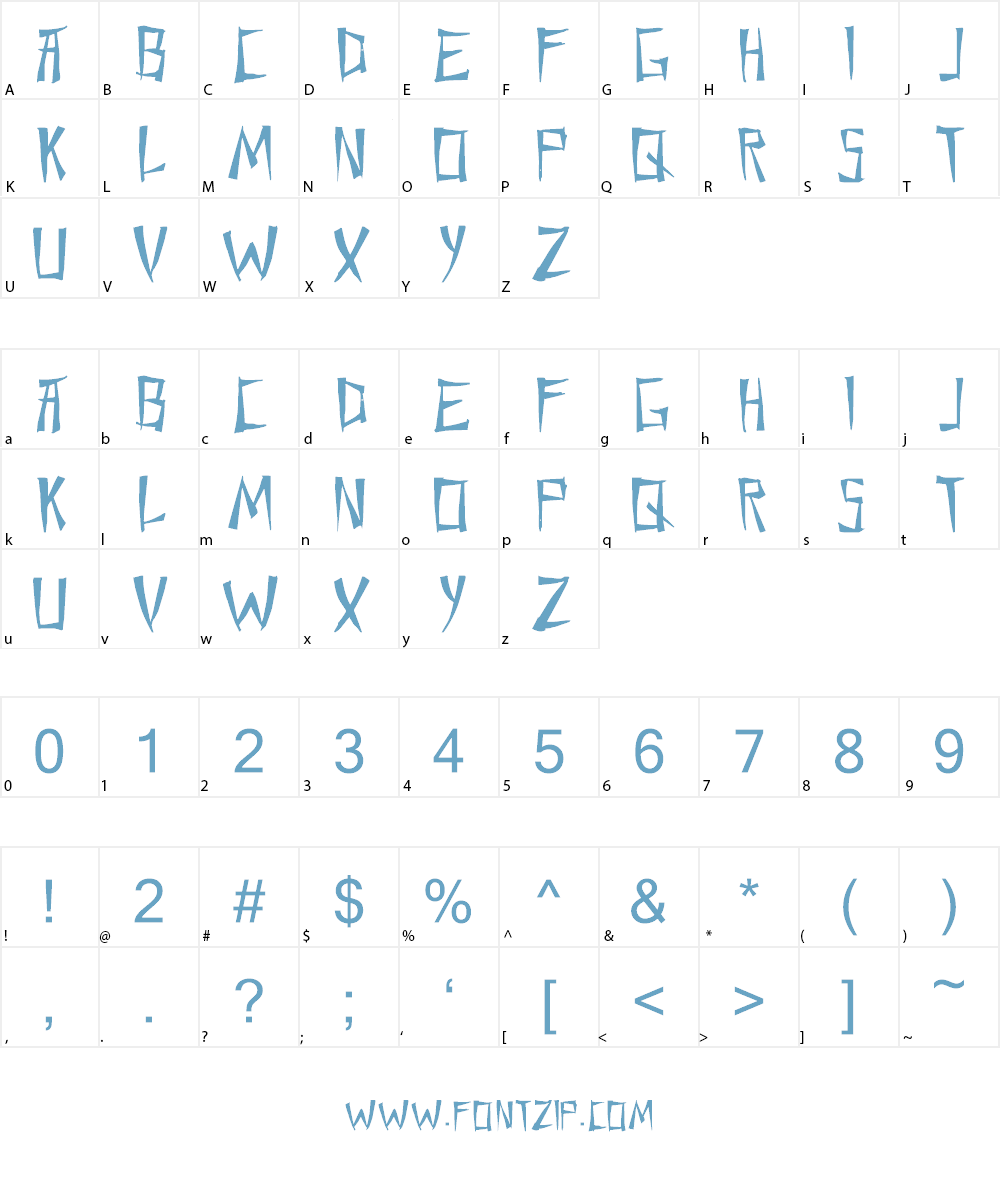
"Chinese"-style font named after the original 'Siamese twins' - Chang and Eng Bunker. Australian designer Isabelle Trolio says: "Were Chang and Eng even from China? I know they weren't from Siam. Anyhow, that's what it's called and that's what it looks like. Handy for writing about panda bears, bamboo and szechuan beef."